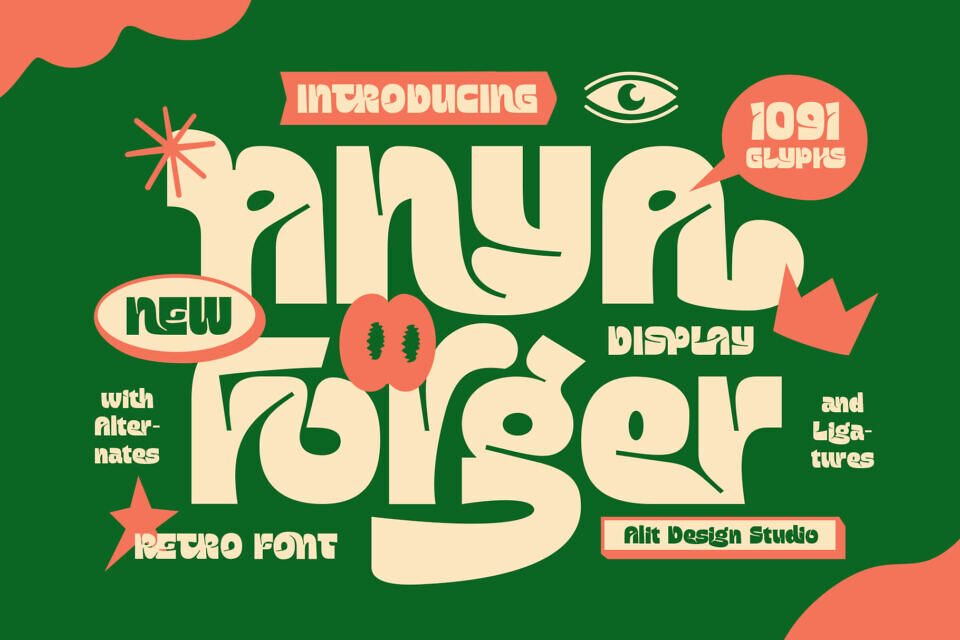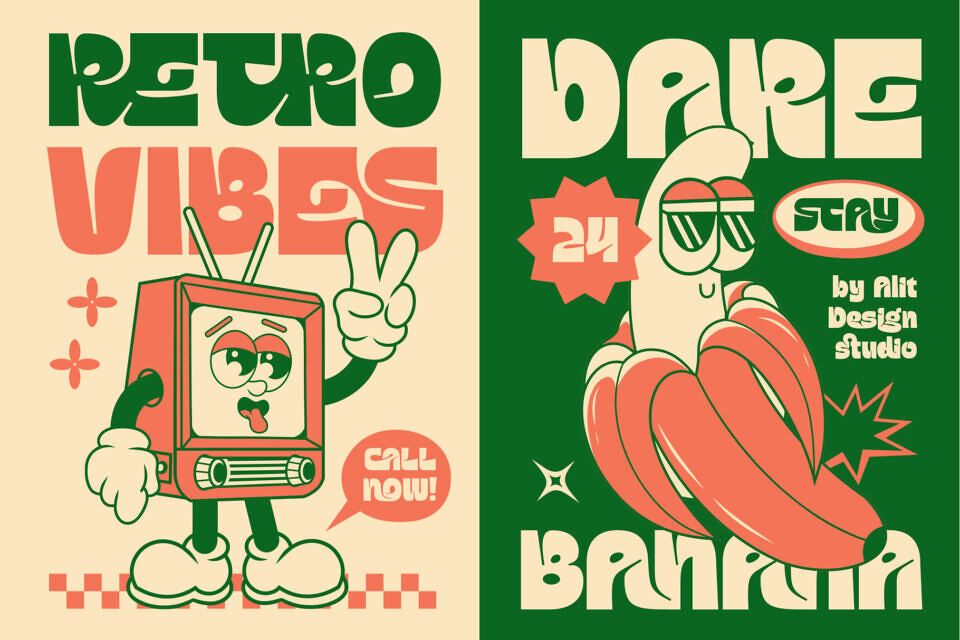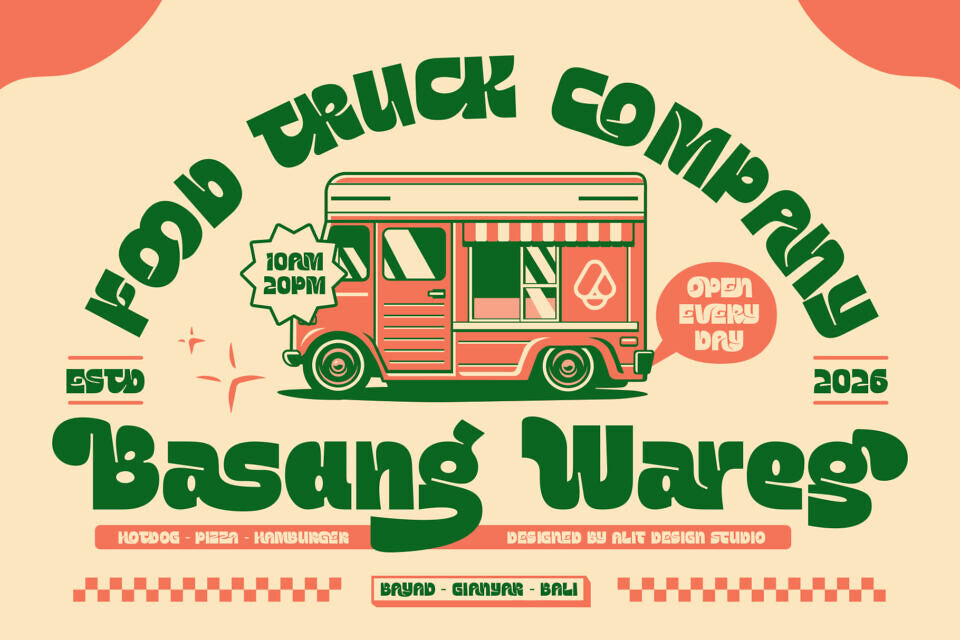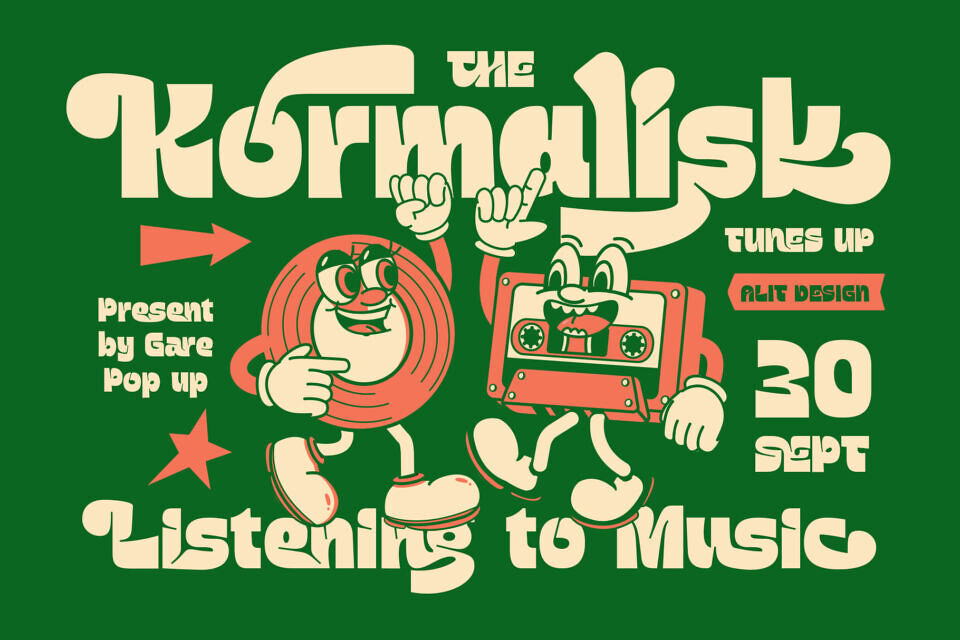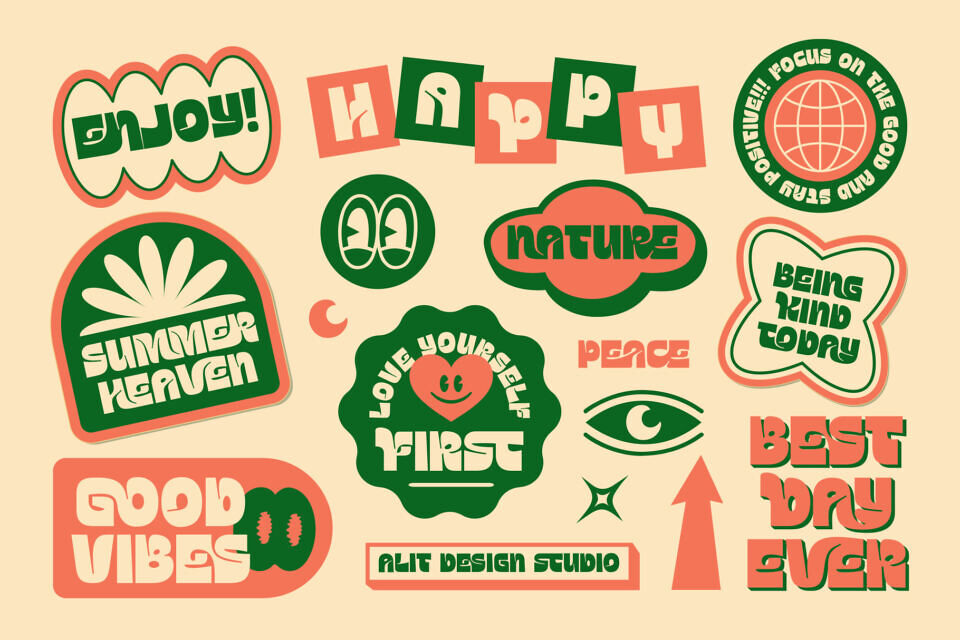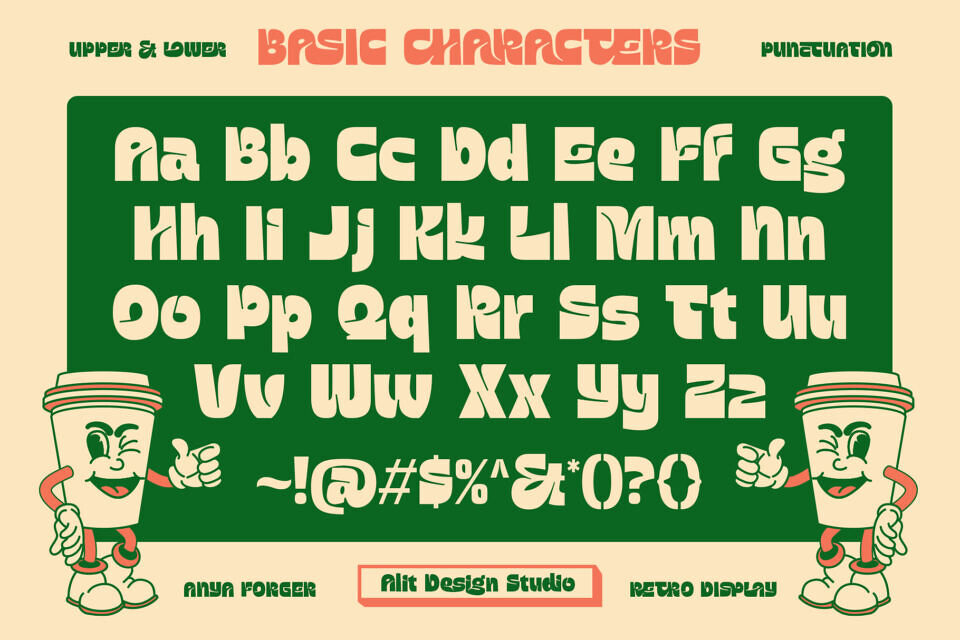
Anya Forger Font
Anya Forger isn’t just a font; it’s a time machine to the grooviest era of design. Heavily inspired by the bold, liquid-like aesthetics of the 1970s and infused with a modern “Rubber Hose” cartoon vibe, this font is engineered to turn heads and spark joy. Created by Alit Design Studio, it strikes the perfect balance between nostalgic charm and contemporary versatility.
Anya Forger is a powerhouse of personality. Its chunky, fluid letterforms and playful silhouettes make it the go-to choice for designers looking to inject energy and a “funky” spirit into their projects. Whether you’re designing for a lifestyle brand, a music festival, or eye-popping social media content, this font delivers maximum impact.